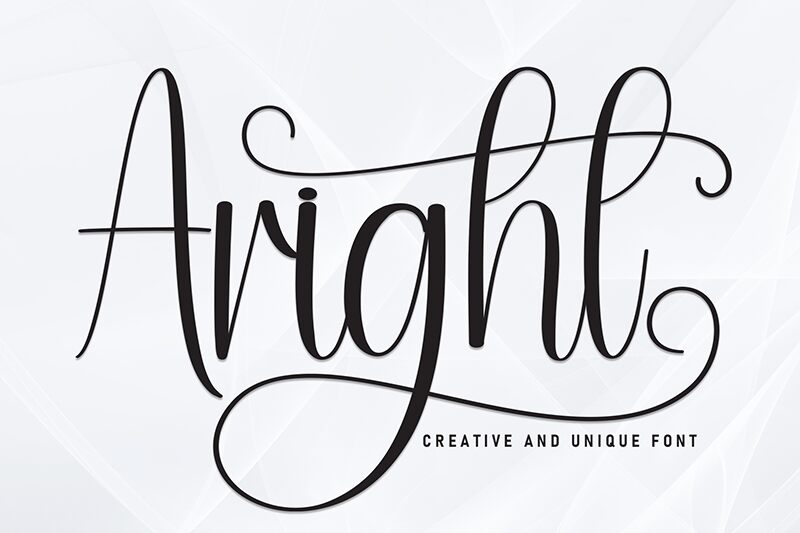
Aright
Aright font by Andi Moz is an elegant, flowing, expressive font combining handwriting with a modern script signature style. Light and condensed in shape and weight, Aright effectively displays long continuous text as well as separate headings. Whether used digitally or in print, it’s a go-to tool for artists and designers.
Use Aright font for packaging design, logos, greeting cards, invitations, fashion magazines layout design headlines. This free handwritten font is great too for social media inspirational posts typography scenes as well as posters or banners.